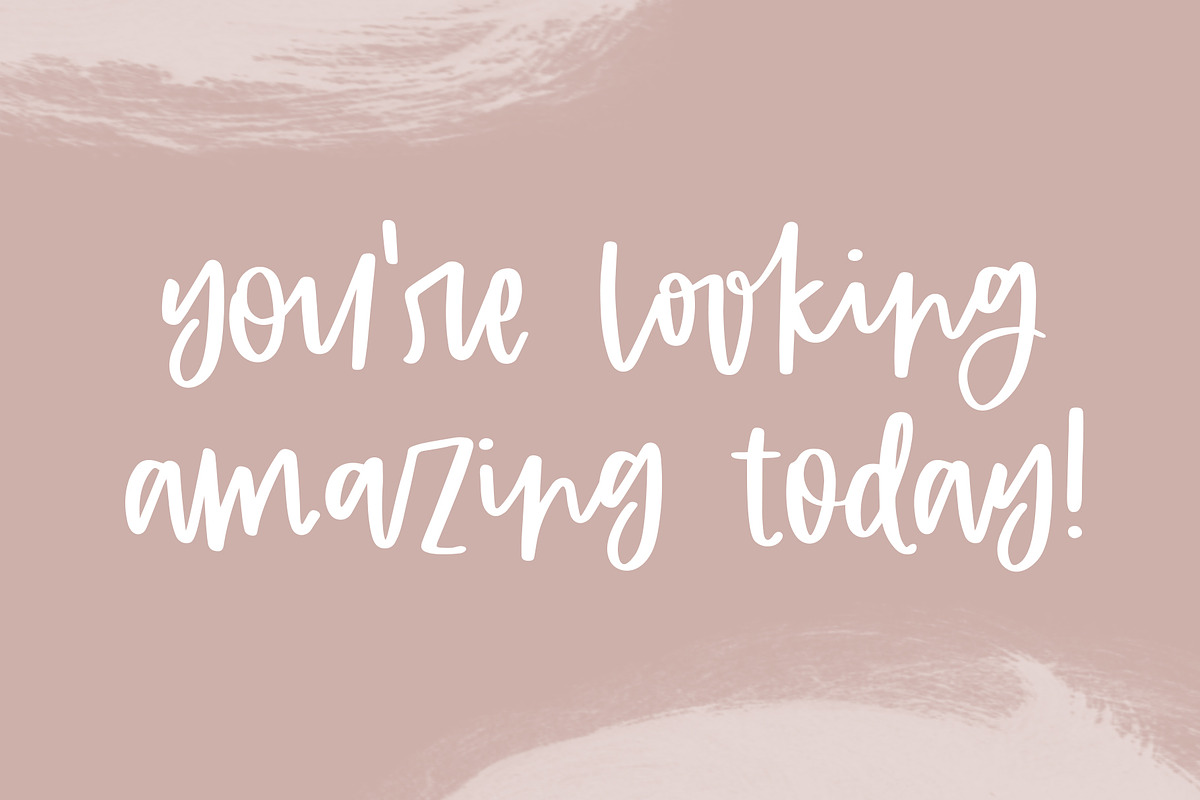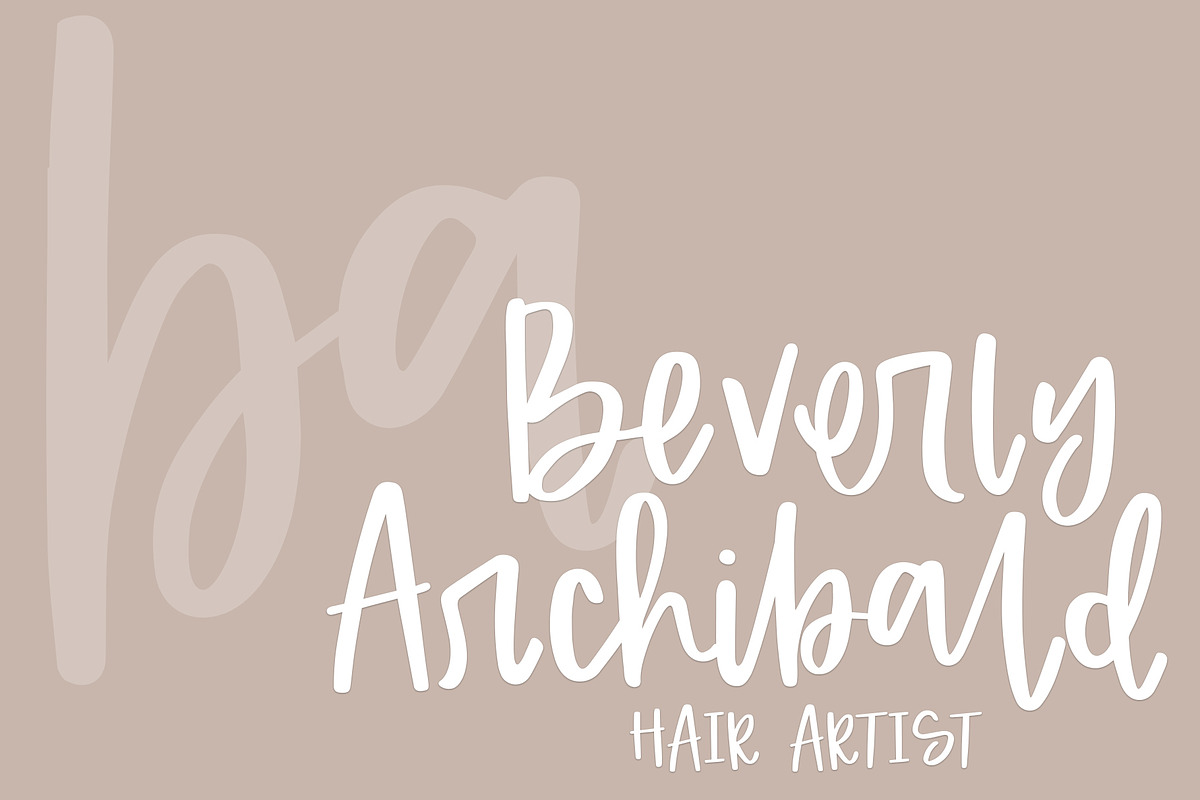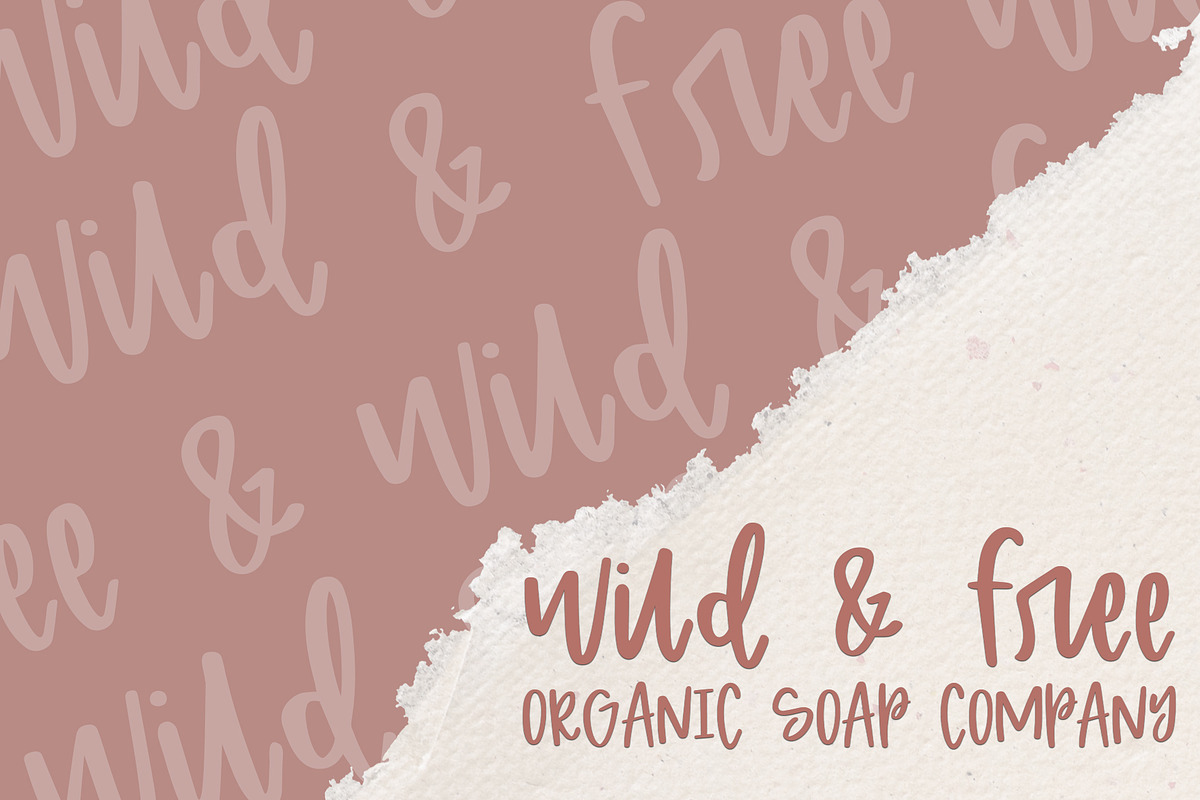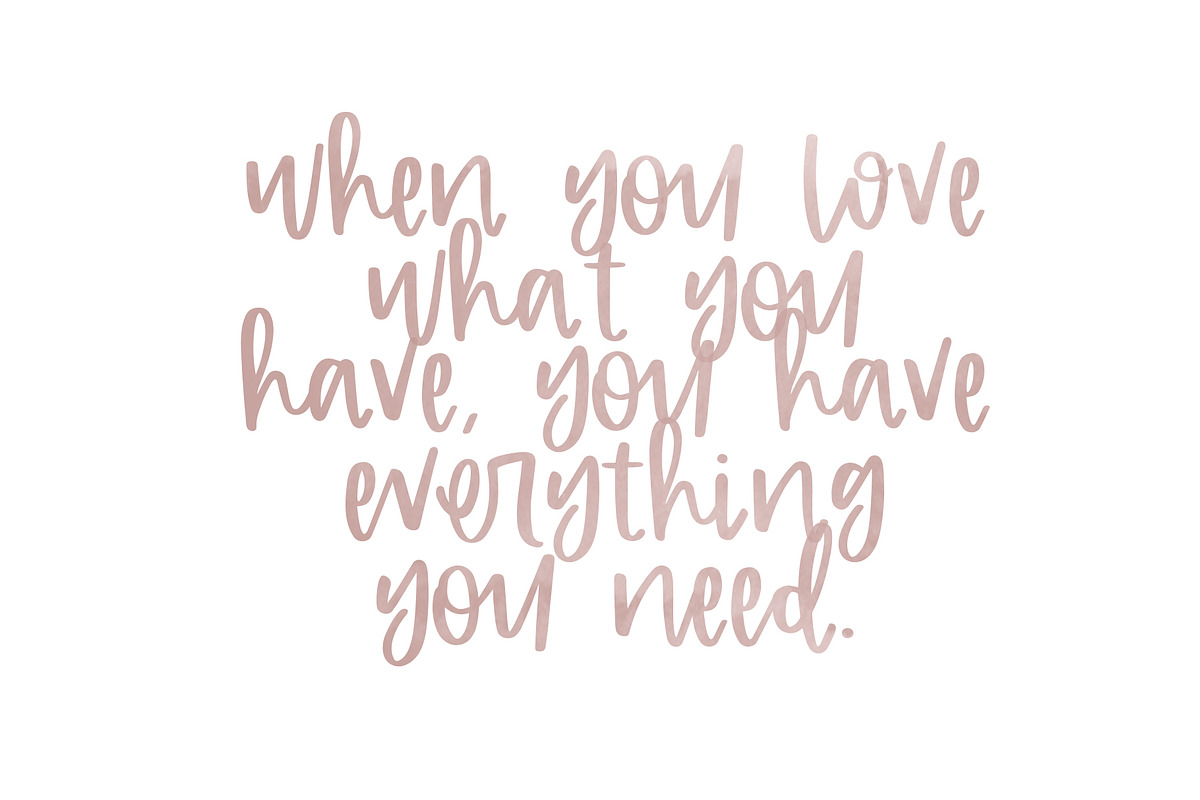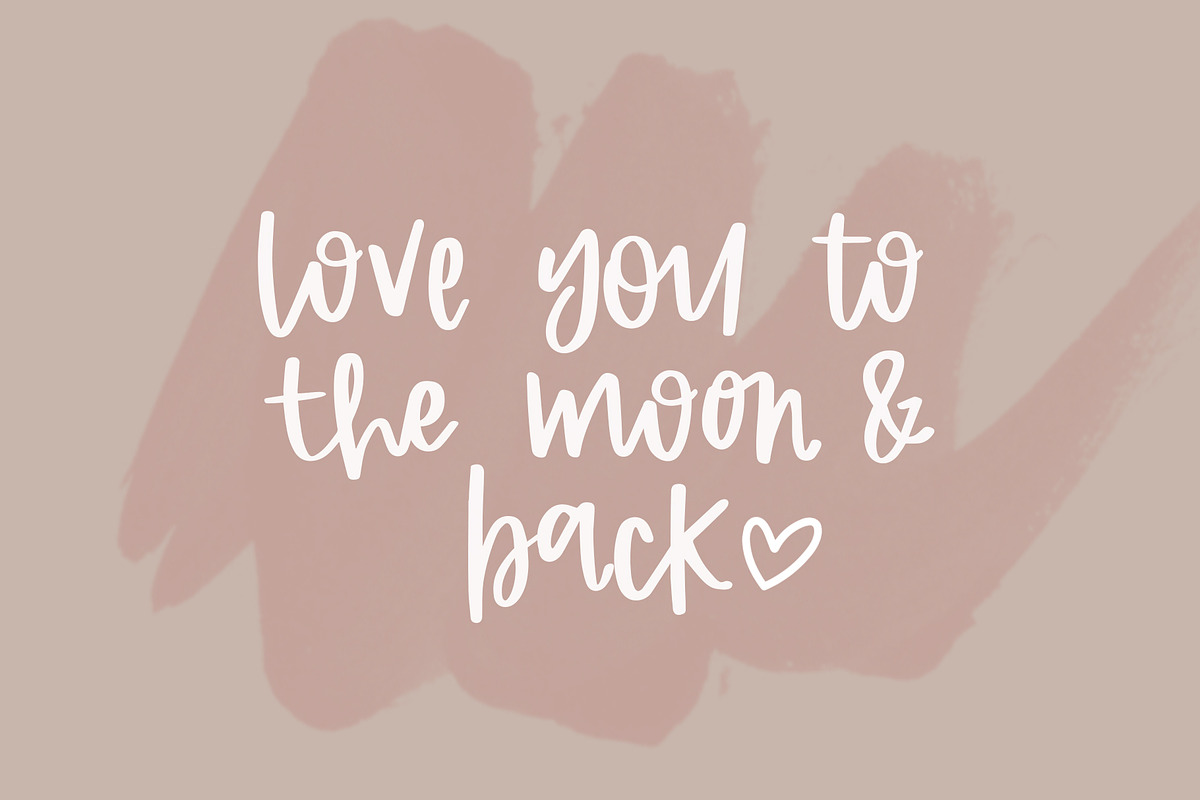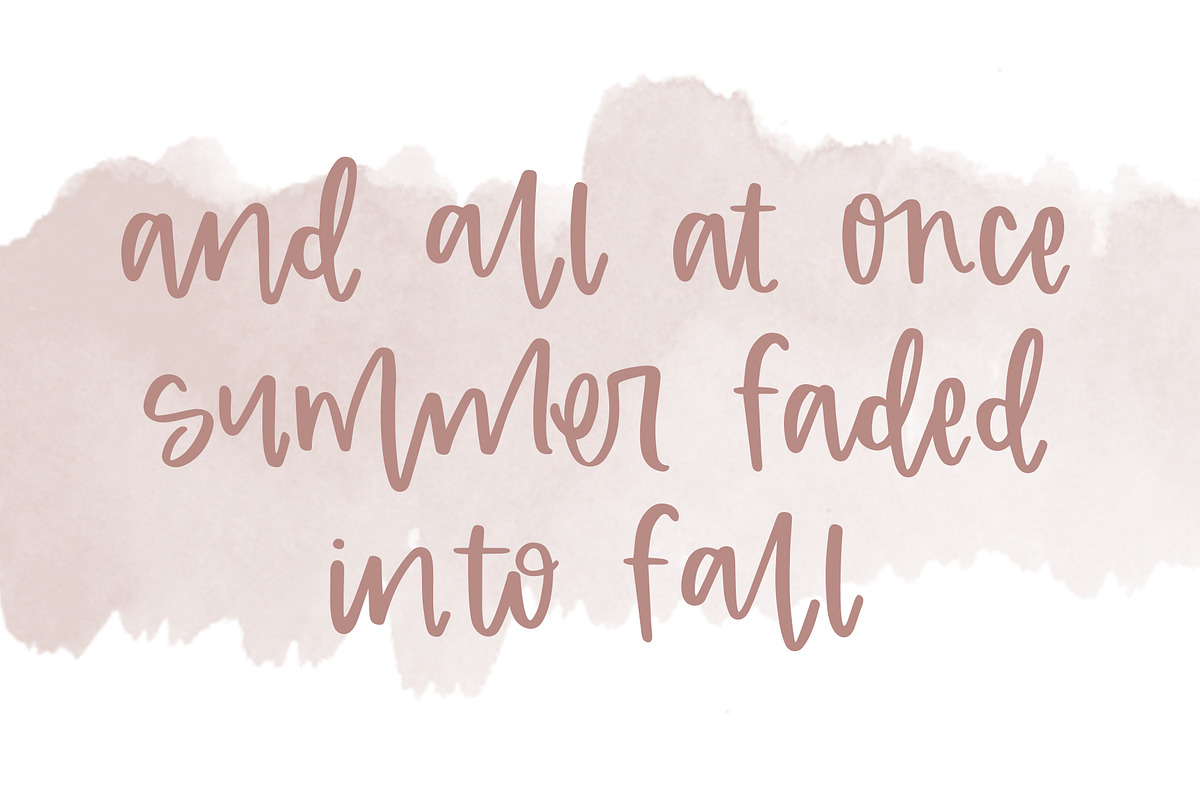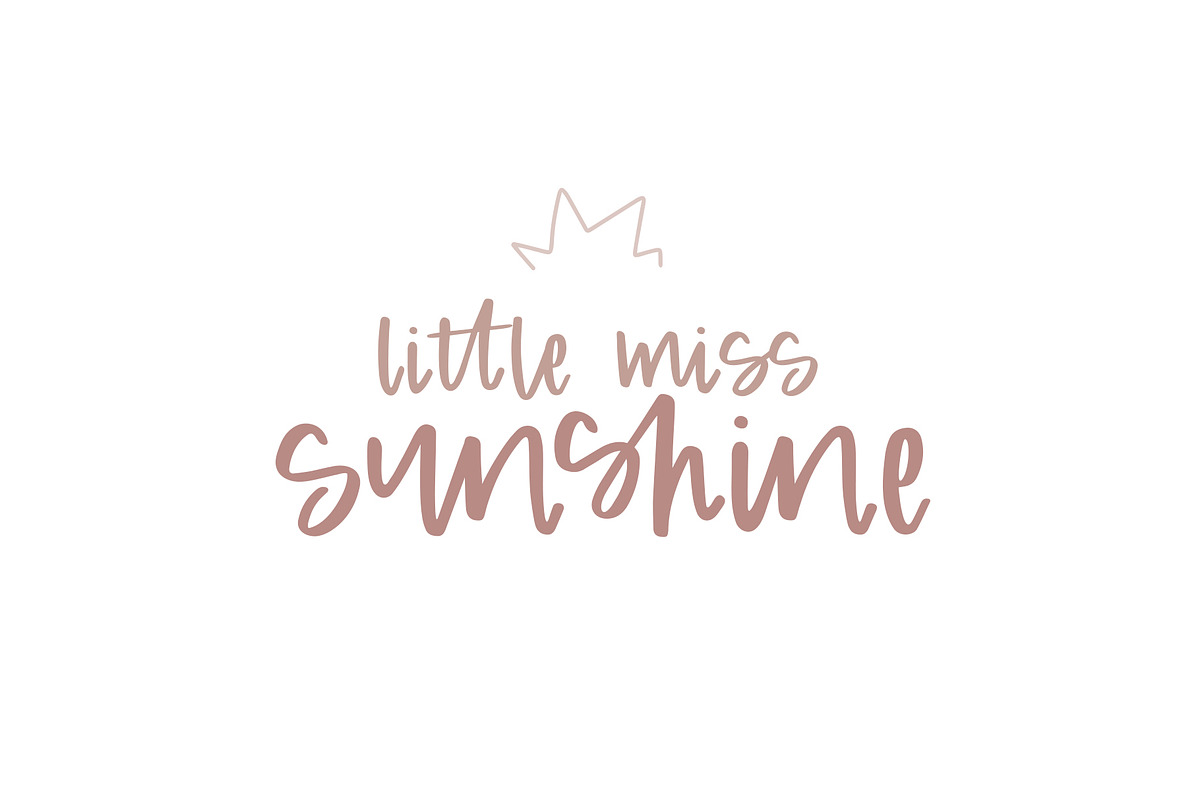
Huckleberry Font
Say hello to Huckleberry! so. many. ligatures. SO MANY! Over 200 ligatures = lots of cuties to add a fun & hand lettered look to your projects.
Use this fun & cute font for all of your creative needs! Graphic design projects, crafting, cards, social media, logos, blog posts, and much more!
- Over 200 ligatures = lots of cuties to add a fun & hand lettered look to your projects.
Huckleberry Font by Dansie Design fits naturally into Branding, posters, packaging, typography.